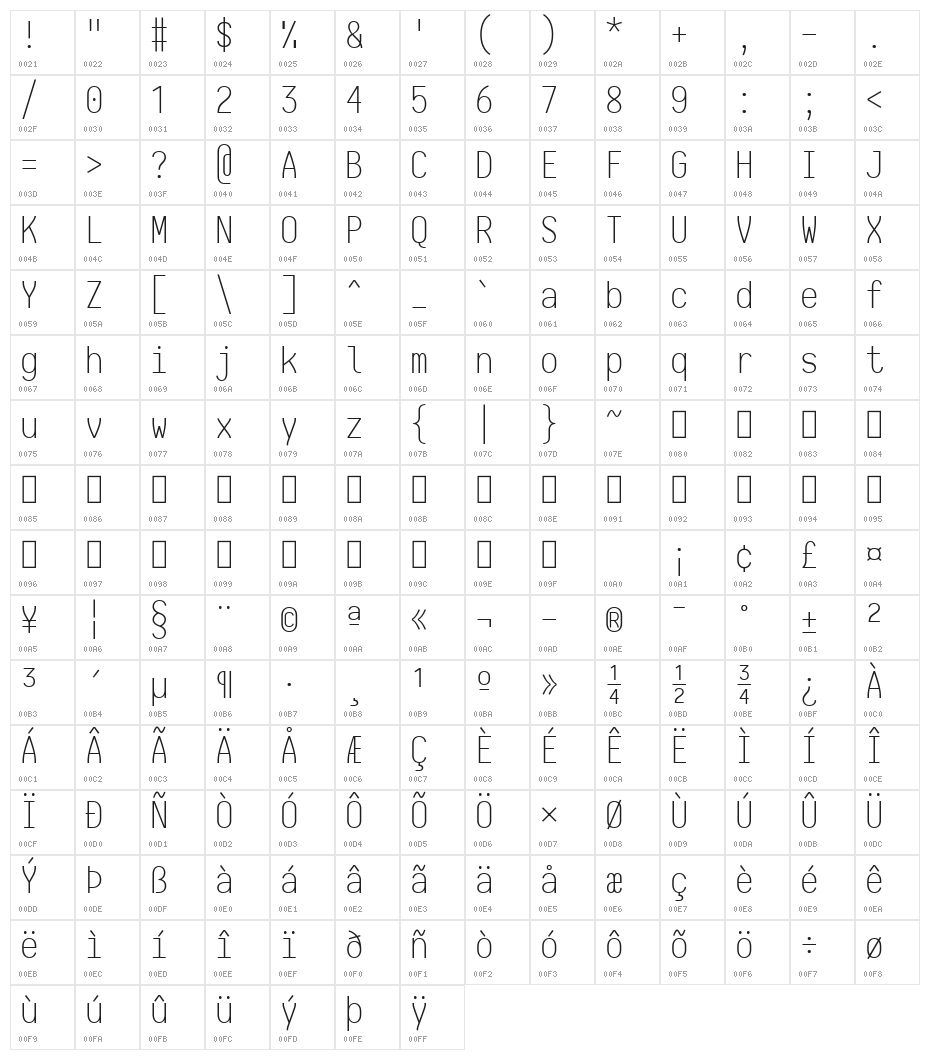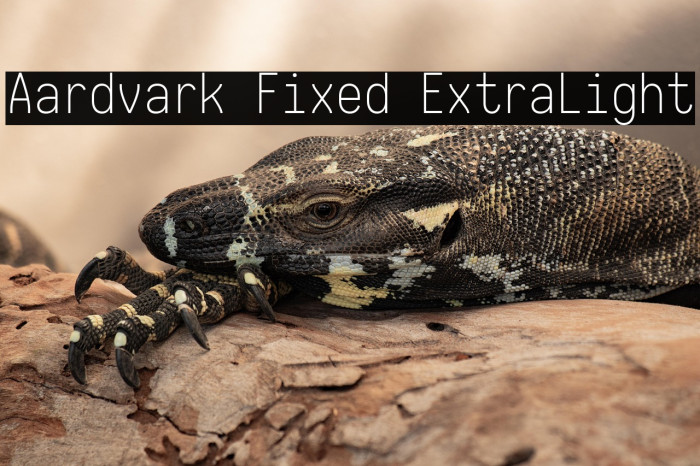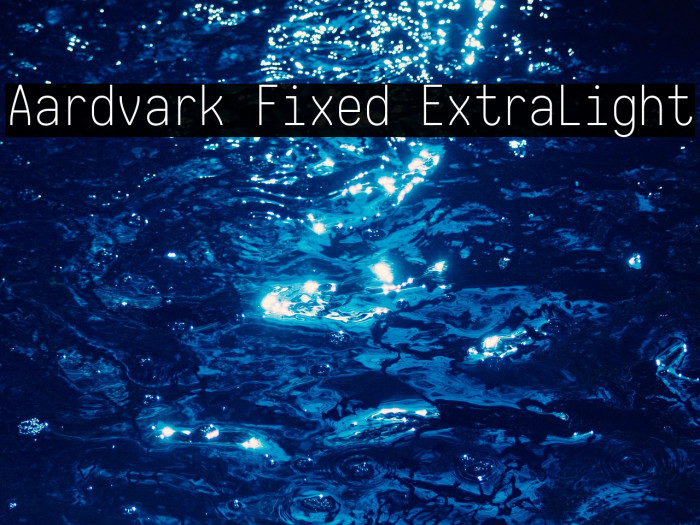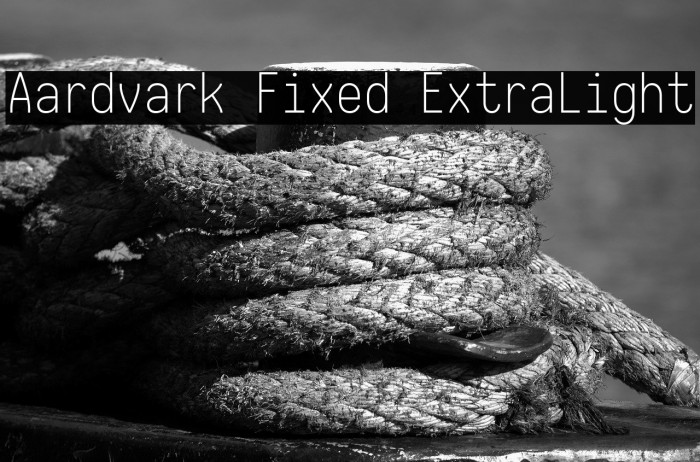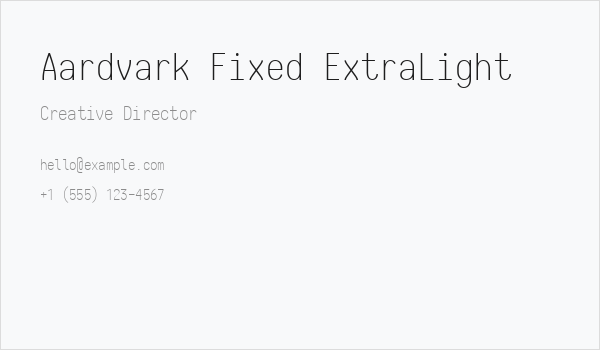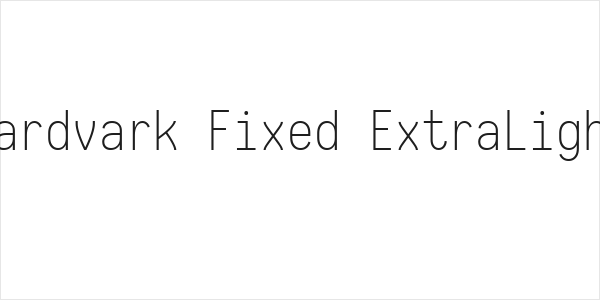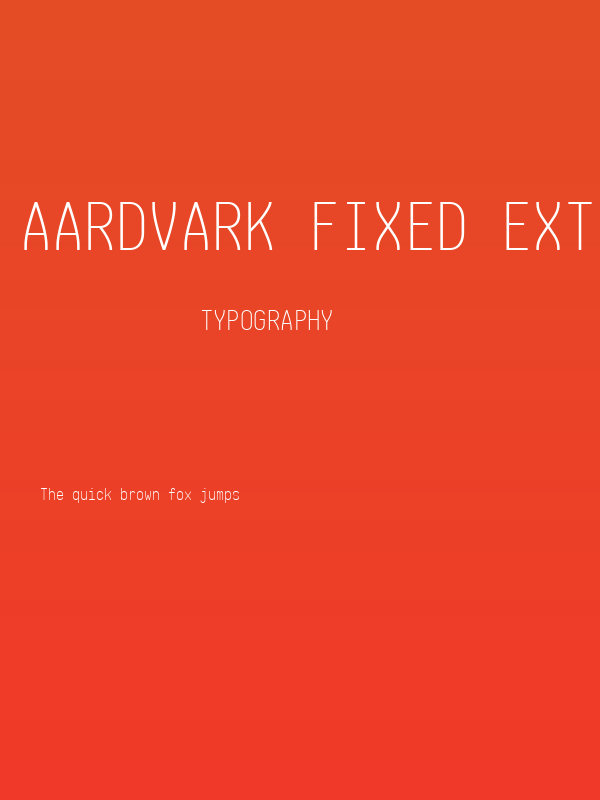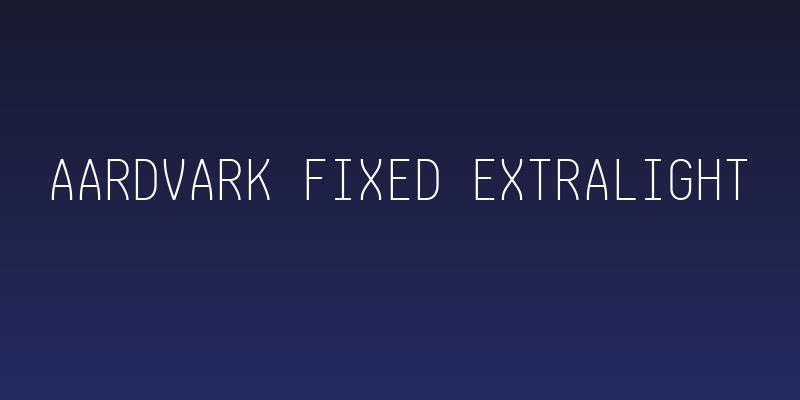
Aardvark Fixed ExtraLight Font
Aardvark Fixed ExtraLight Description
This font features a clean and modern design with a monospaced structure, providing uniformity in character width. The extra light weight gives it a delicate appearance, making it suitable for minimalist designs. The characters are well-defined with a geometric influence, offering a contemporary and professional look. The uppercase and lowercase letters maintain a consistent height, while the numerals and special characters are clear and easily distinguishable. Its simplicity and precision make it ideal for coding, technical documents, and any project requiring clarity and readability.
| Use Case | Coding, Technical documents, Minimalist designs |
| Proposed Projects | Ideal for coding, technical documents, minimalist designs, and professional presentations. |